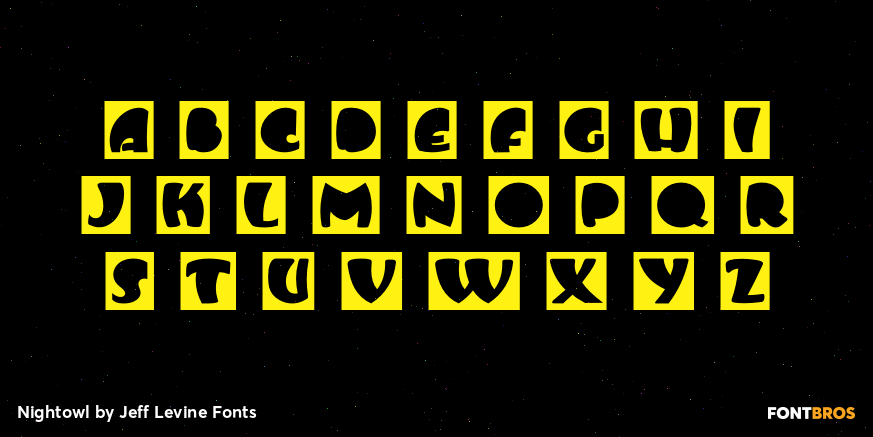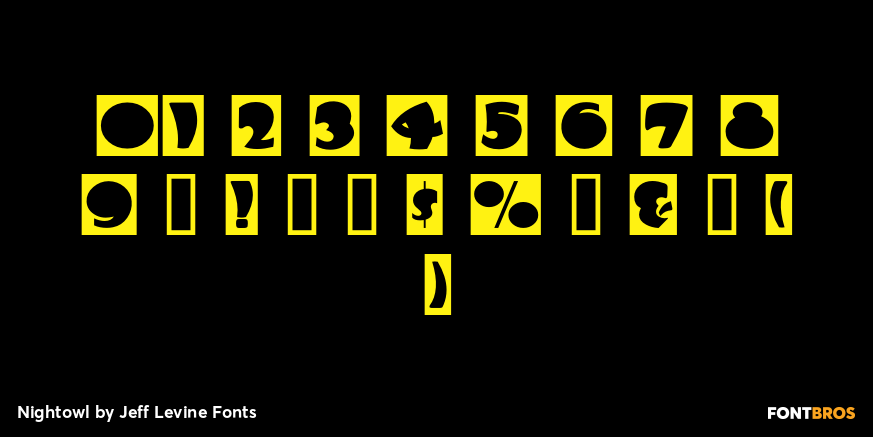
Nightowl
Nightowl JNL is a headline font encased in rectangles inspired by an Art Deco hand-lettered alphabet found in a 1941 edition of the Speedball® Lettering Pen instruction book.
There is only a basic character set plus two different width blank rectangles located on the greater and lesser keys.